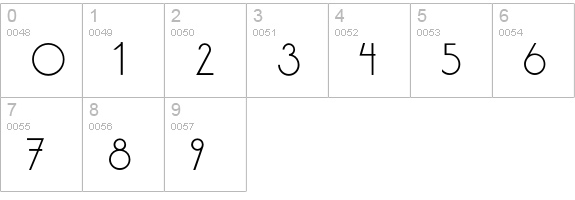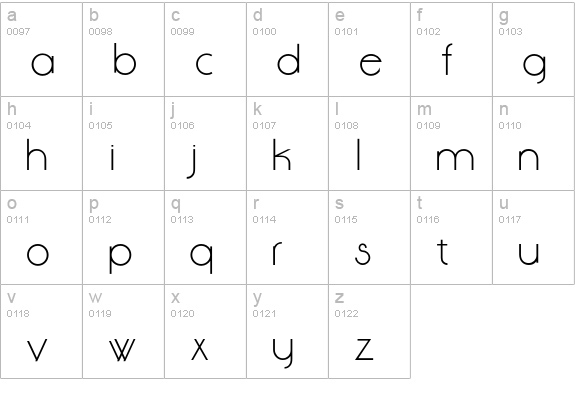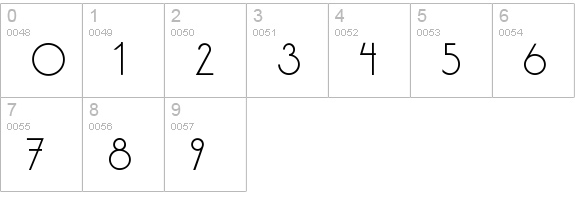
AaseFont Font Details
Introducing AaseFont, a stunning and versatile typeface that is sure to make a lasting impression on any project. With its elegant yet modern design, AaseFont effortlessly combines classic elements with contemporary flair, making it the perfect choice for a wide range of applications. With AaseFont, you can bring your designs to life with its exceptional legibility and attention to detail. Whether you're designing a logo, creating a website, or crafting a brochure, this font will add a touch of sophistication and professionalism to your work. One of the best things about AaseFont is that it is available for free. That's right - you can download this remarkable font without spending a dime! Simply head over to FontsMarket.com and discover the endless possibilities that AaseFont has to offer. AaseFont features a wide range of characters, including uppercase and lowercase letters, numbers, punctuation marks, and special symbols. This comprehensive character set ensures that you have everything you need to bring your creative visions to life. Not only does AaseFont excel in terms of aesthetics, but it is also incredibly versatile. It is equally at home in both digital and print formats, ensuring that your designs will look stunning no matter what medium you choose. The attention to detail in AaseFont is truly remarkable. Each letter is meticulously crafted, with perfect curves and balanced proportions. This level of craftsmanship results in a font that is visually pleasing and easy to read, even at small sizes. Whether you're a professional designer or someone who simply appreciates great typography, AaseFont is a must-have addition to your font collection. Its timeless elegance and modern appeal make it suitable for a wide range of projects, from branding to editorial design and everything in between. Don't miss out on the opportunity to enhance your designs with the beauty and versatility of AaseFont. Download it for free today at FontsMarket.com and unlock a world of possibilities for your next creative endeavor.